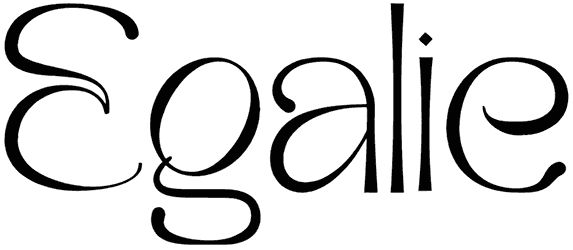
Egalie Font
Create an unrivaled design and shine with antique words but in a modern and original style. This antique font, which is called Egalie, possesses a unique and smooth letter face that can be harmonized with any modern or classic design. Give it a try and use it on your intended layouts from greeting cards to social media posts, and have a delight.